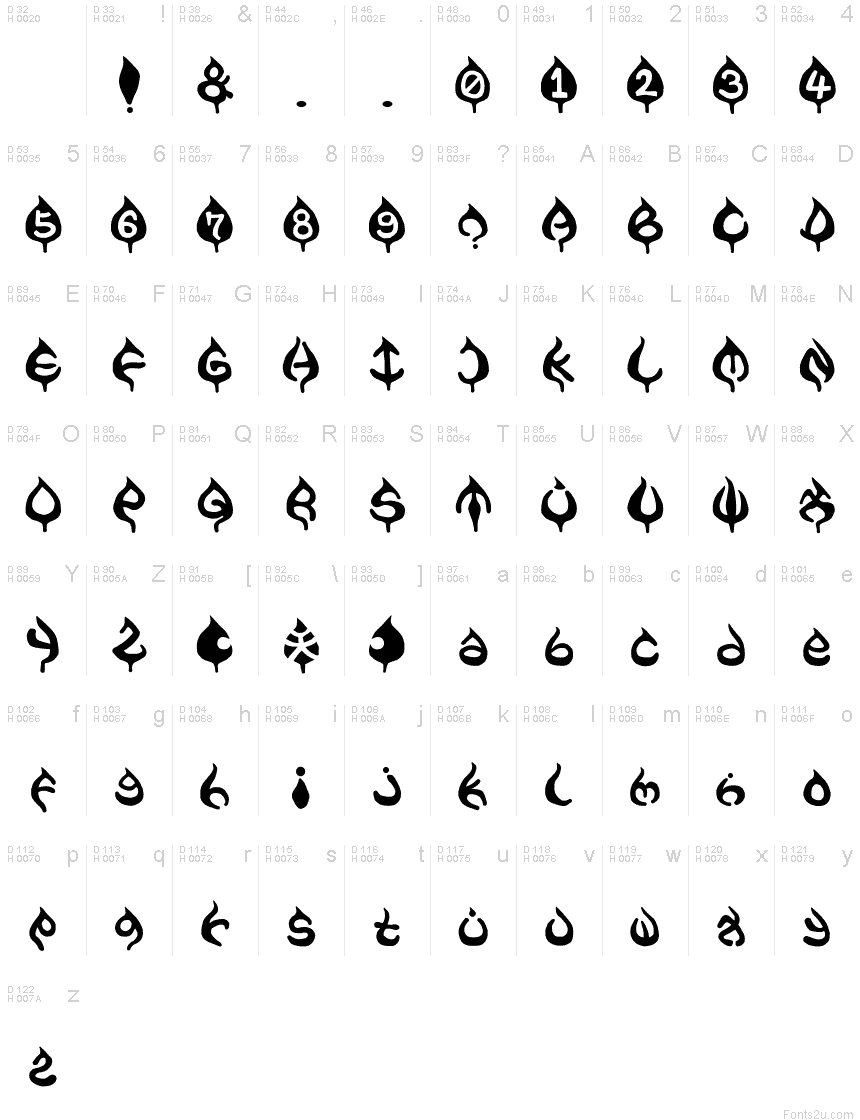
AME-
Ame font by Tamon Yahagi is a free decorative display typeface with letters that look like inky droplets caught mid-fall. Each form swells into a bold, teardrop silhouette, then narrows into soft, flickering tails, giving the whole alphabet a liquid, flame-like rhythm. The result feels organic and slightly mysterious-somewhere between ritual script and underground club poster.
Using Ame, your text doesn’t just sit on the page, it oozes and curls through it, making this free font a standout choice for album covers, festival posters, experimental branding, zines, occult or horror titles, and streetwear graphics. Set it large so the sculpted curves and thick ink pools really breathe, and pair it with a plain geometric sans serif to keep layouts readable while Ame delivers the drama.